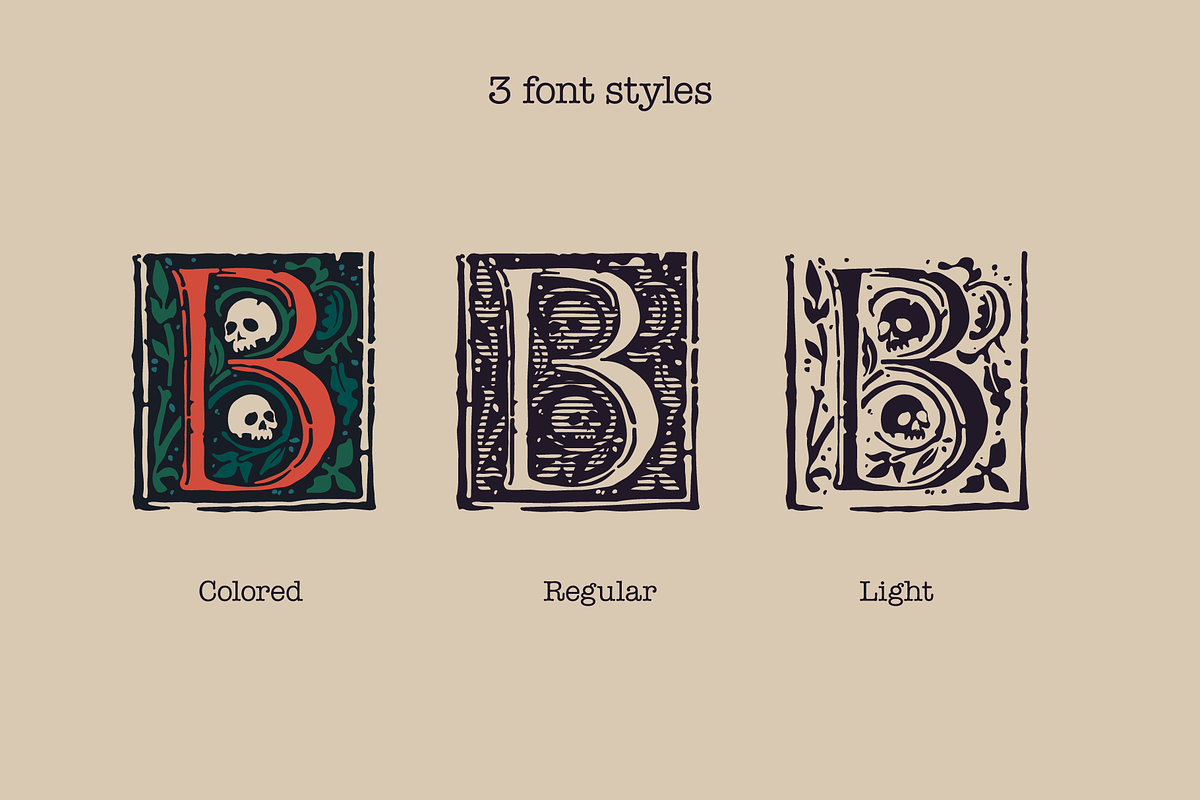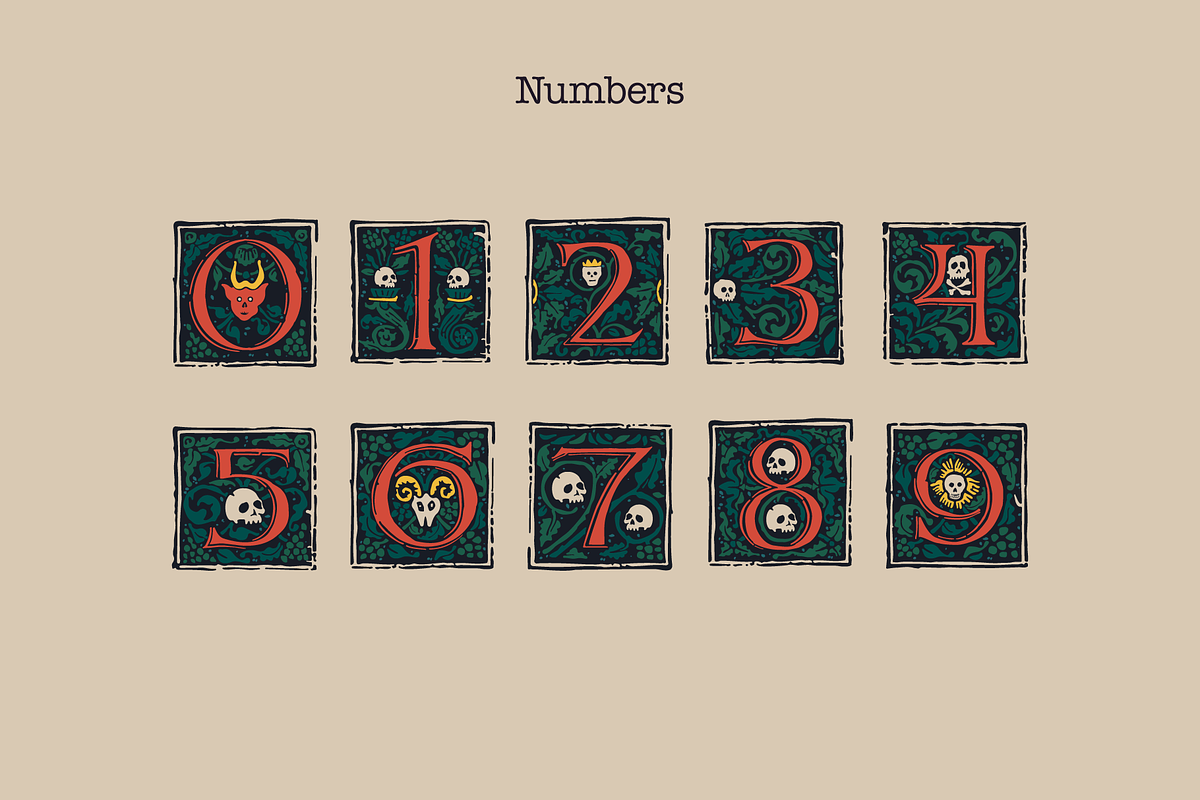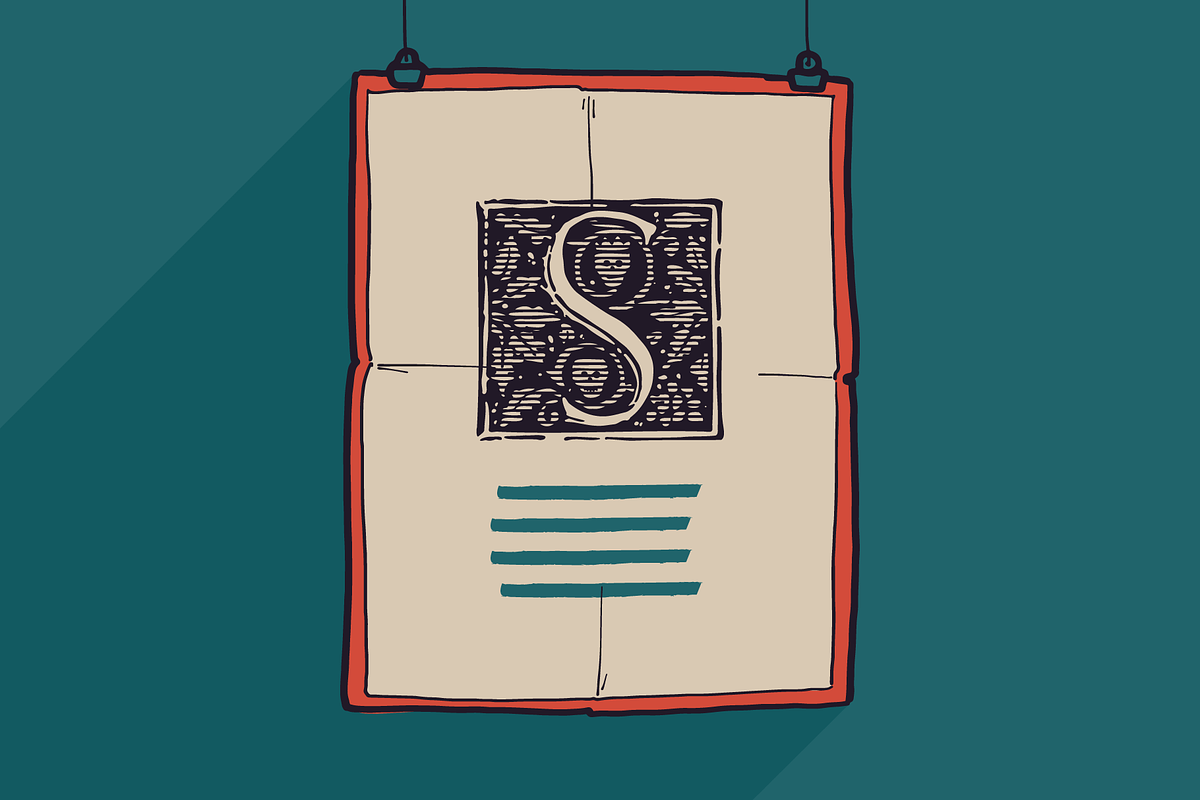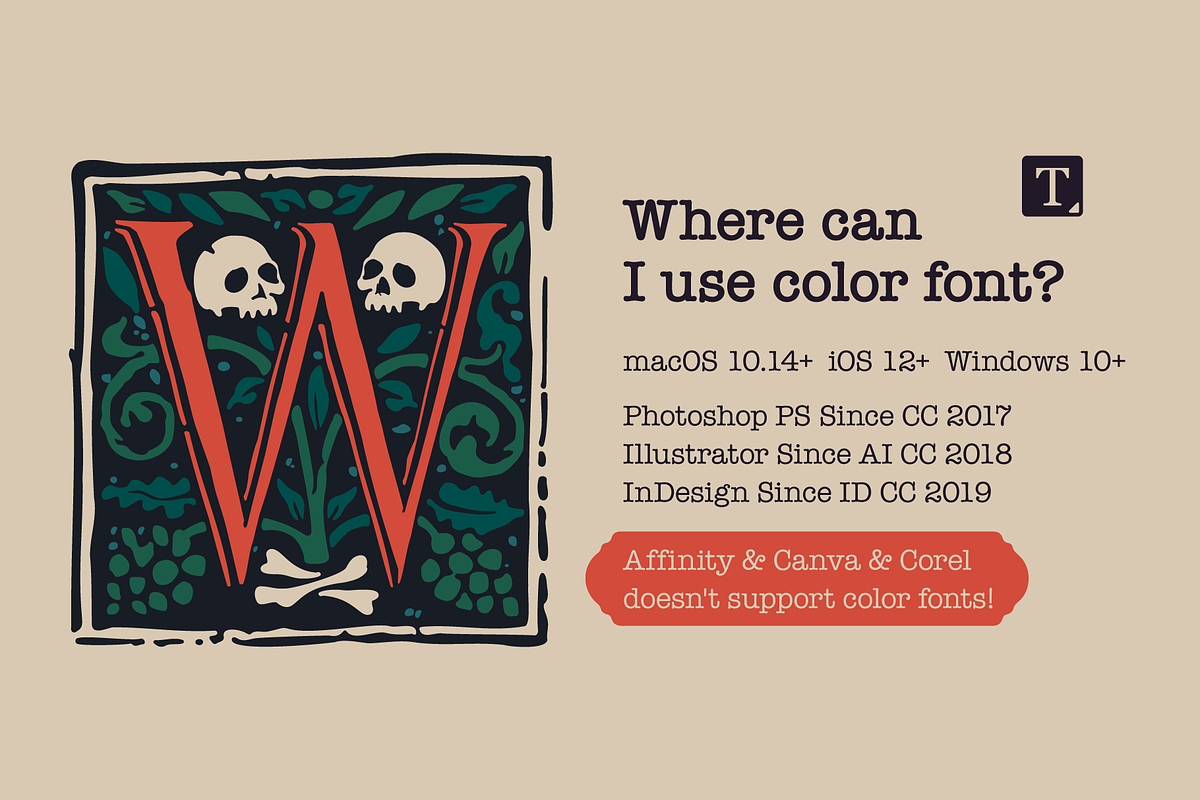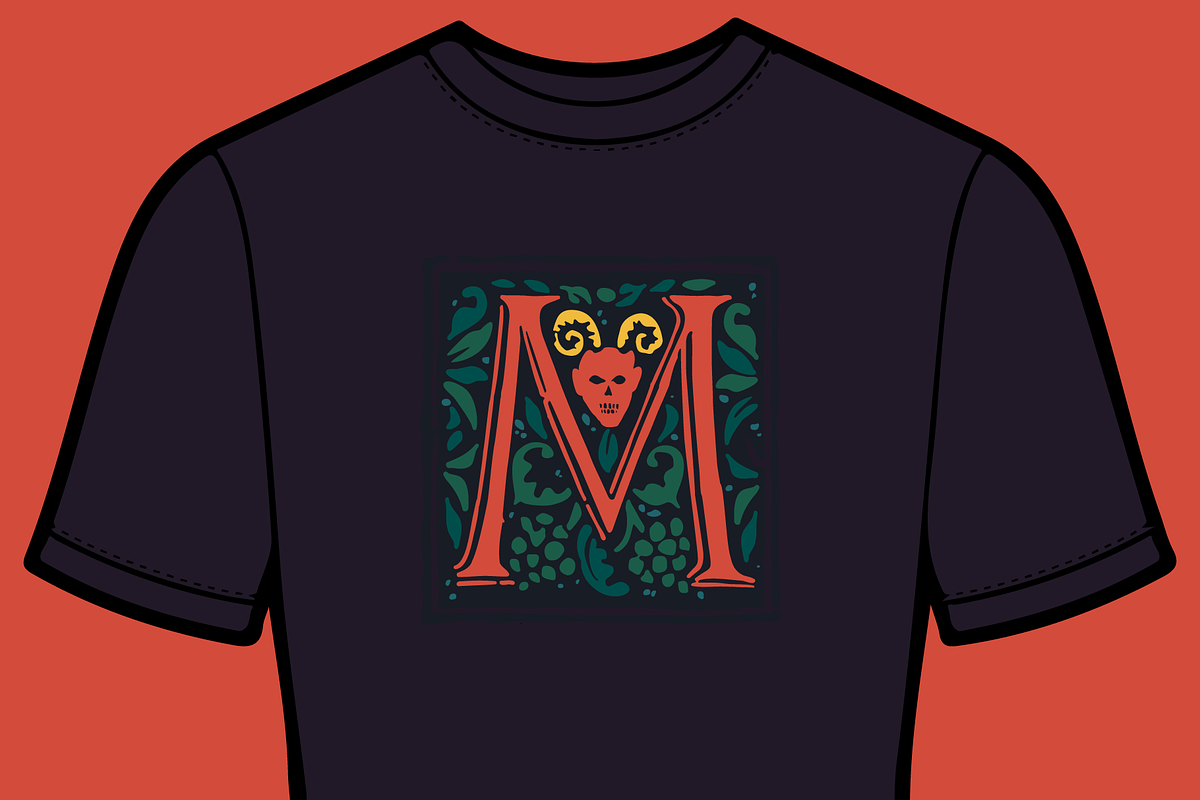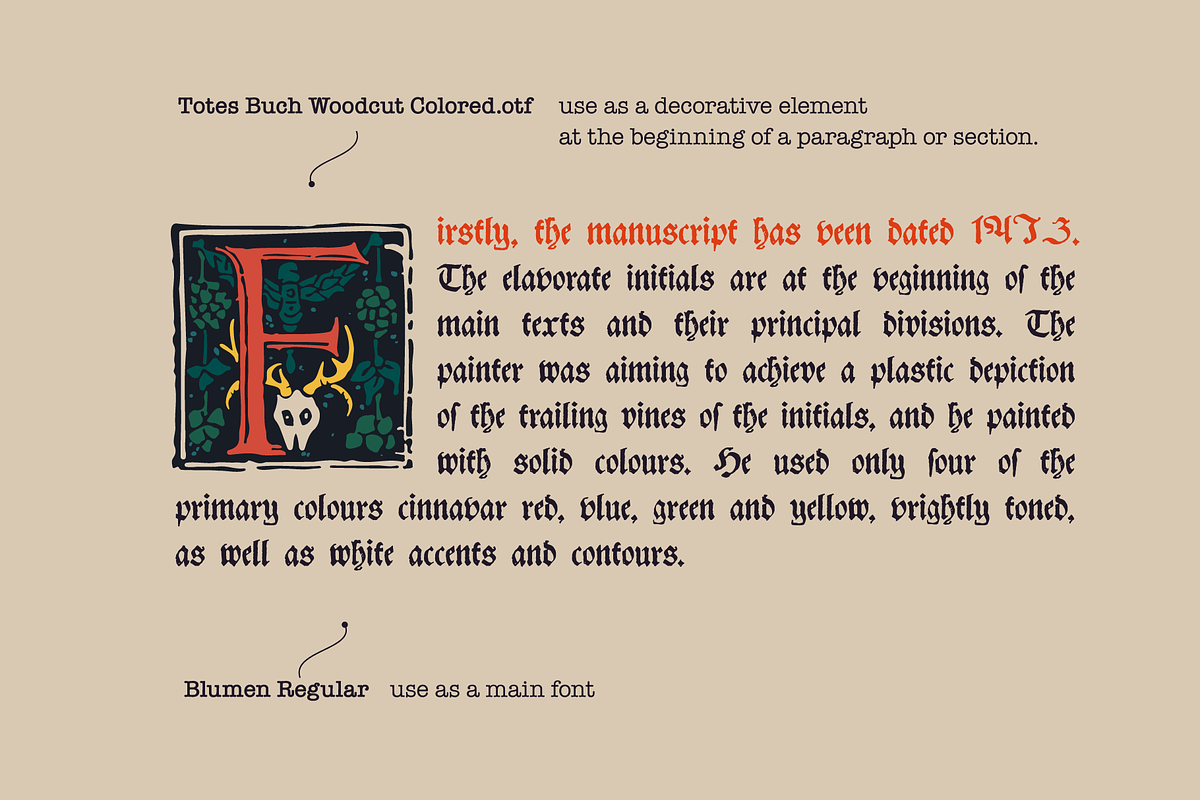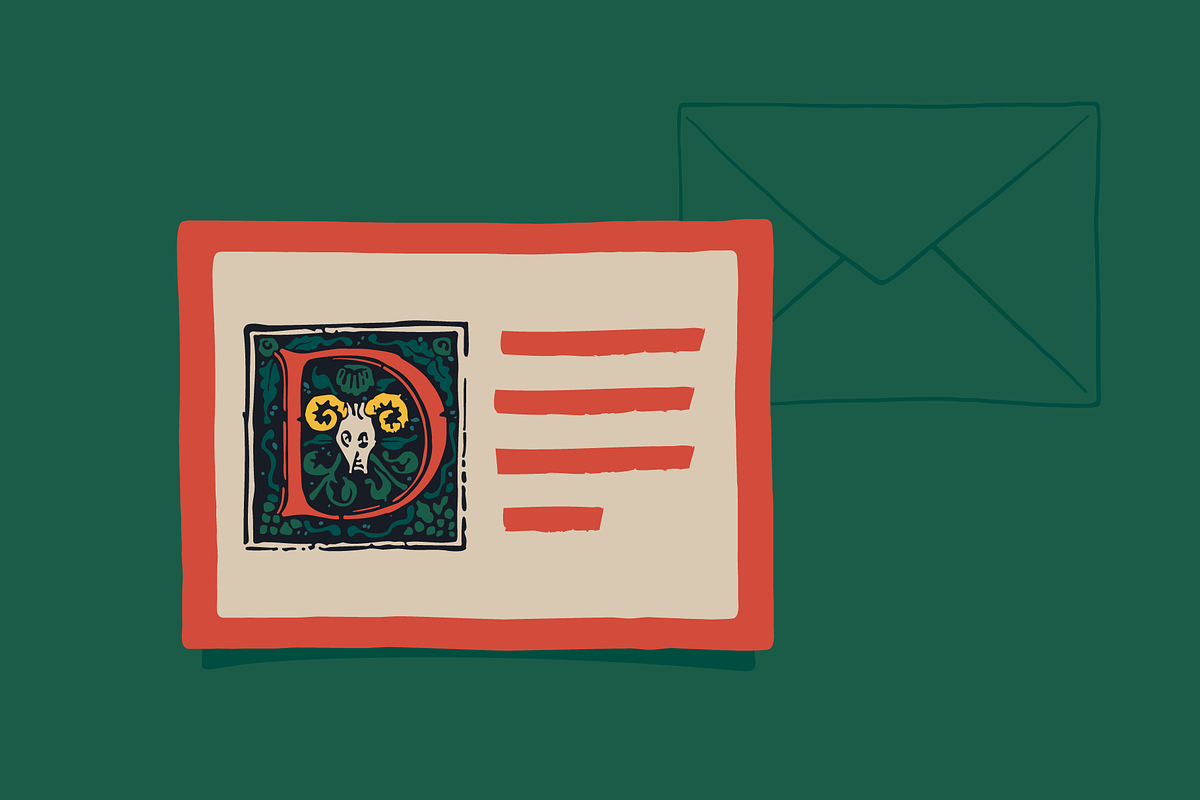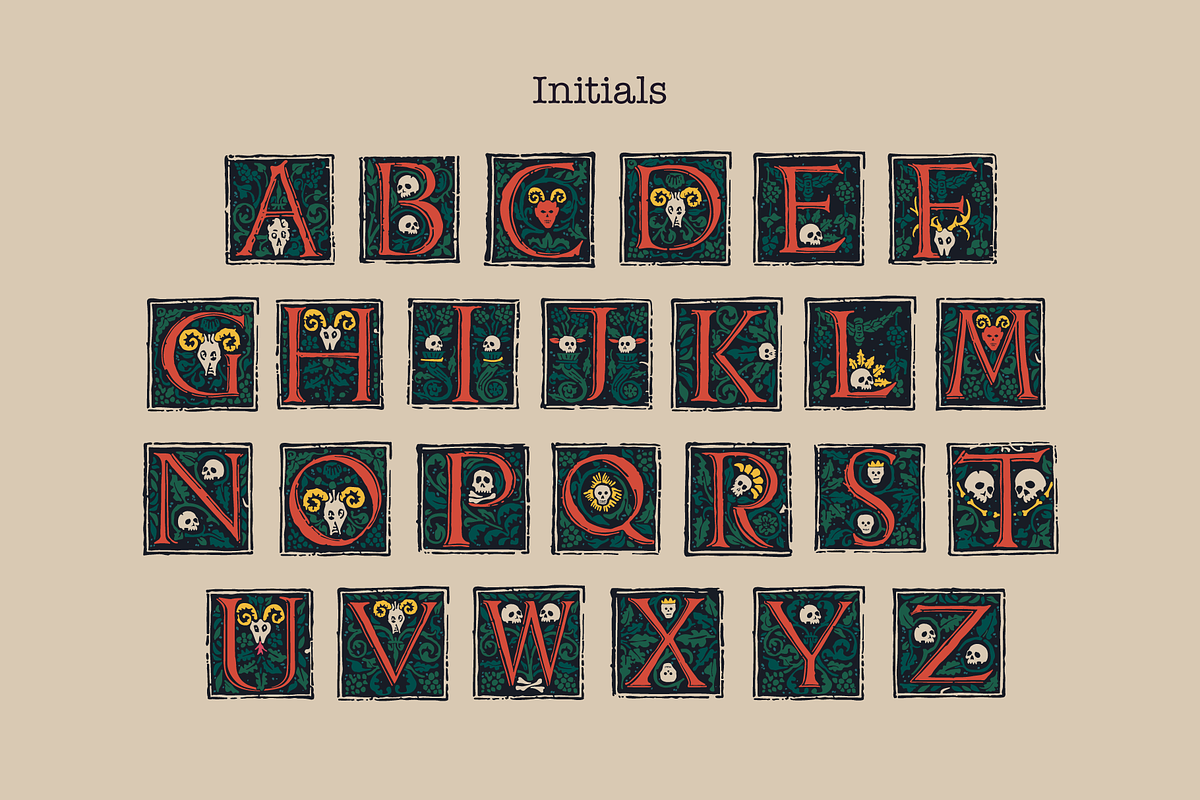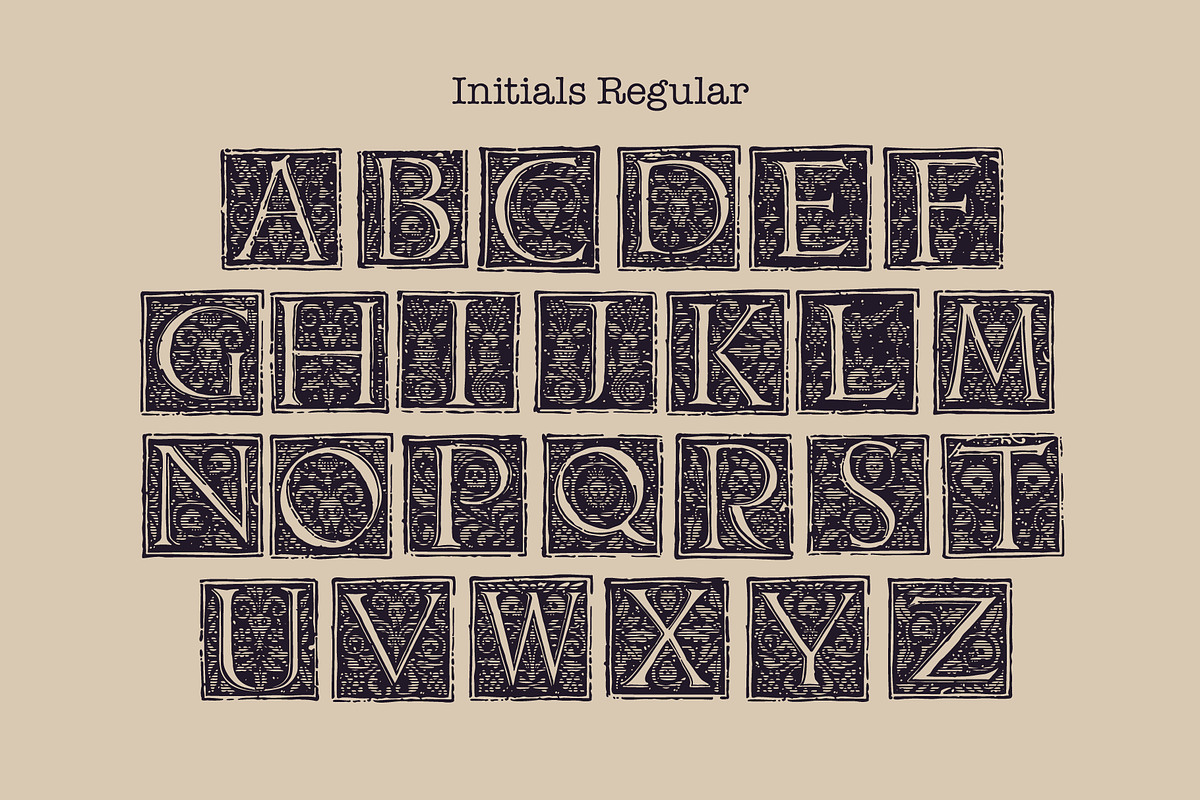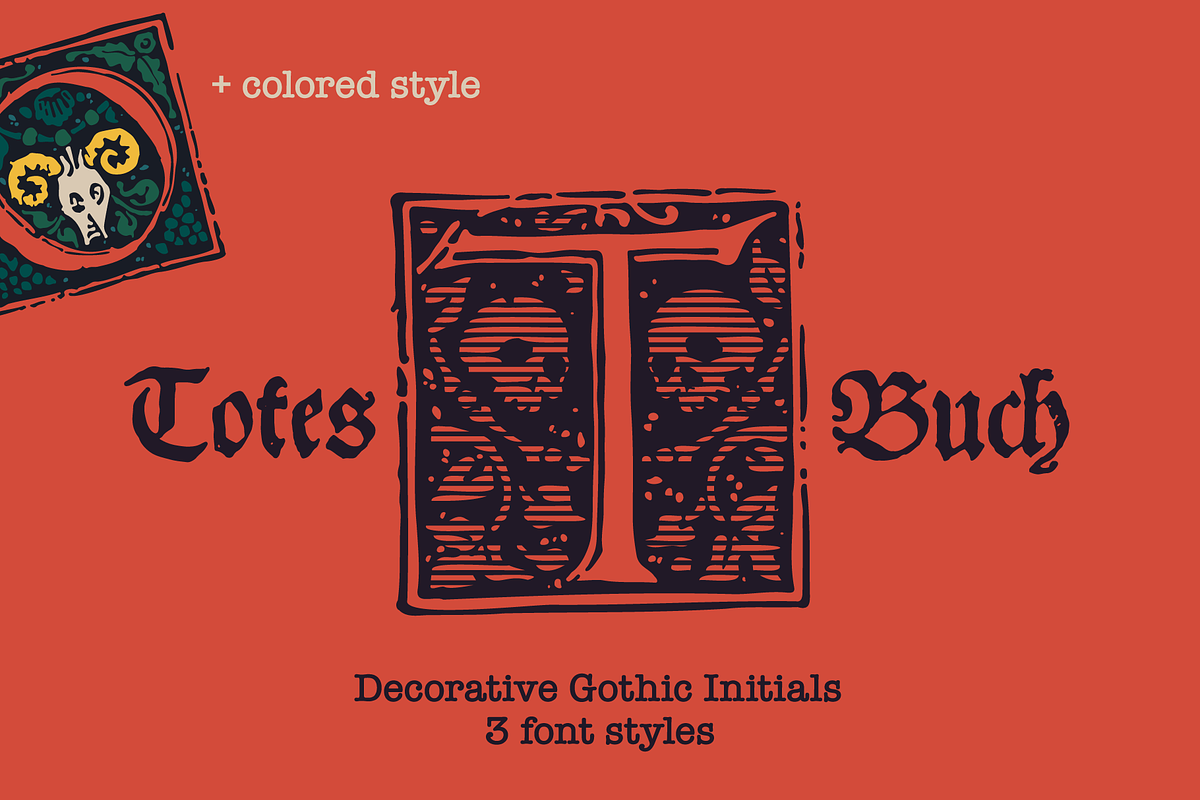
Totes Buch Gothic Woodcut Initials
The creation of Totes Buch began with a digital discovery. While exploring the historical book "Punica", I was completely captivated by its rare 15th-century typography. Inspired by its ancient beauty, I meticulously digitized the letterforms, completely redesigned many characters, and created all the numbers from scratch to form a cohesive, modern drop caps font.
Whether you are designing custom tattoo flash sheets, streetwear merch, fantasy book covers, or premium vintage labels, the Totes Buch font bundle provides the ultimate historical edge.